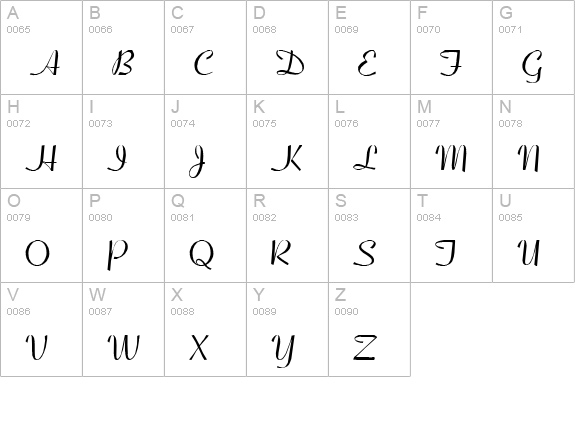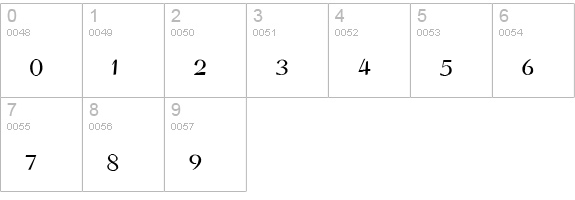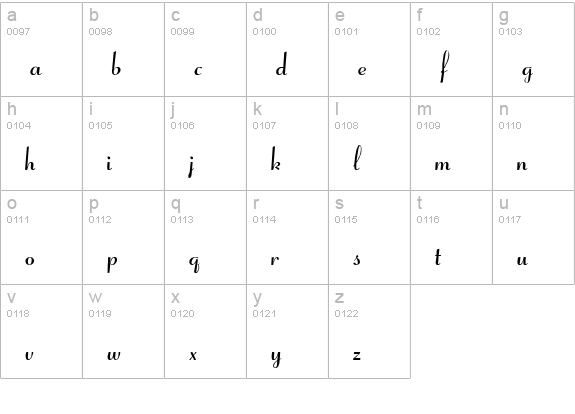
Coronet Script SSi Normal is the standard, neutral variant in the Coronet typeface family \xE2\x80\x94 well suited to general body text, paragraphs, and standard typographic work.
Coronet Script SSi Normal font is an elegant and sophisticated typeface that exudes timeless charm and classic appeal. With its graceful curves and delicate flourishes, this font is perfect for adding a touch of elegance to any project. Whether you're designing wedding invitations, creating branding materials, or crafting a stylish logo, Coronet Script SSi Normal font is sure to make a statement. Best of all, Coronet Script SSi Normal font is available for free download at FontsMarket.com. This means that you can easily access this beautiful font and incorporate it into your designs without any cost. Don't miss out on the opportunity to elevate your projects with the stunning Coronet Script SSi Normal font - download it for free today!